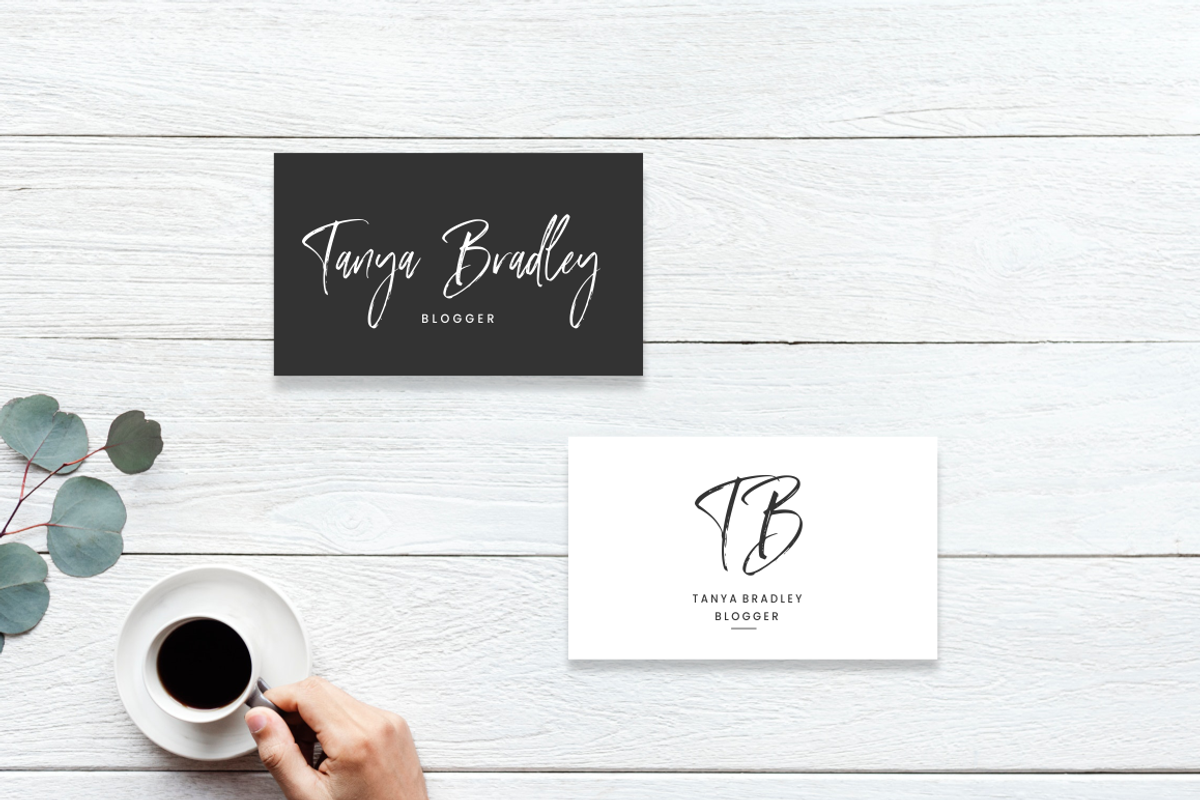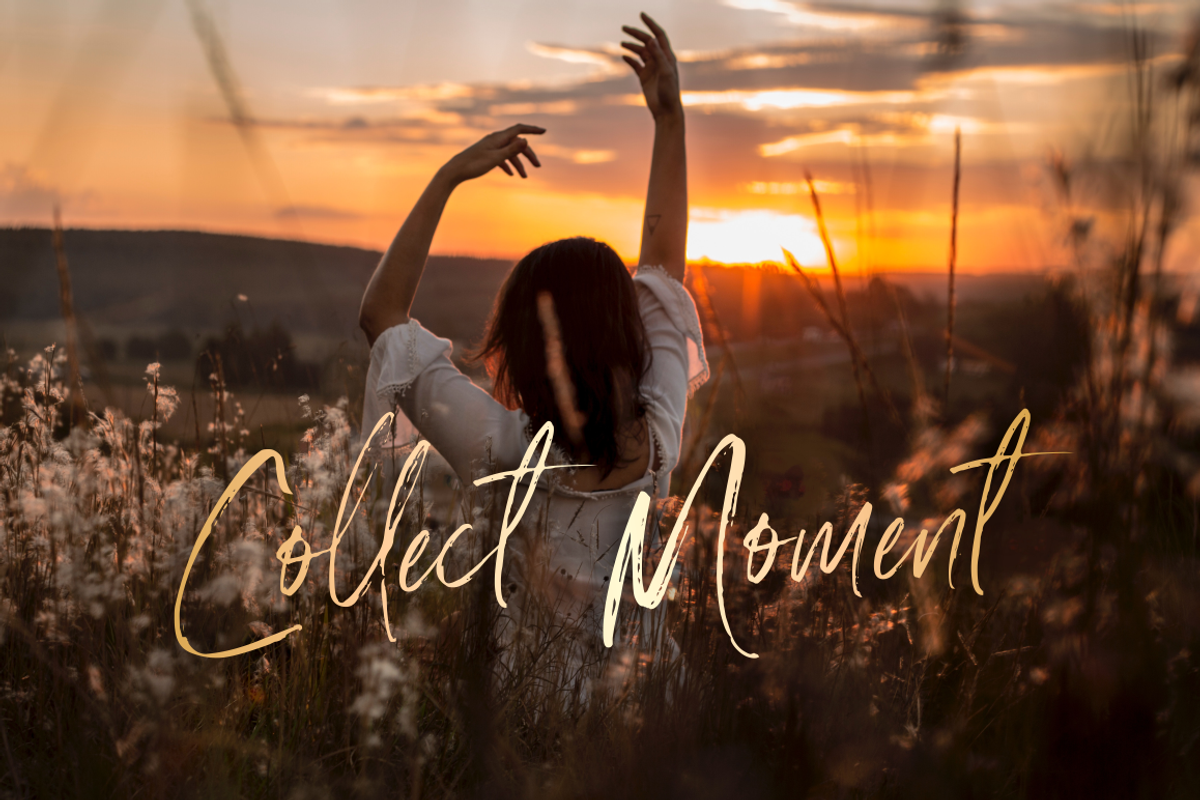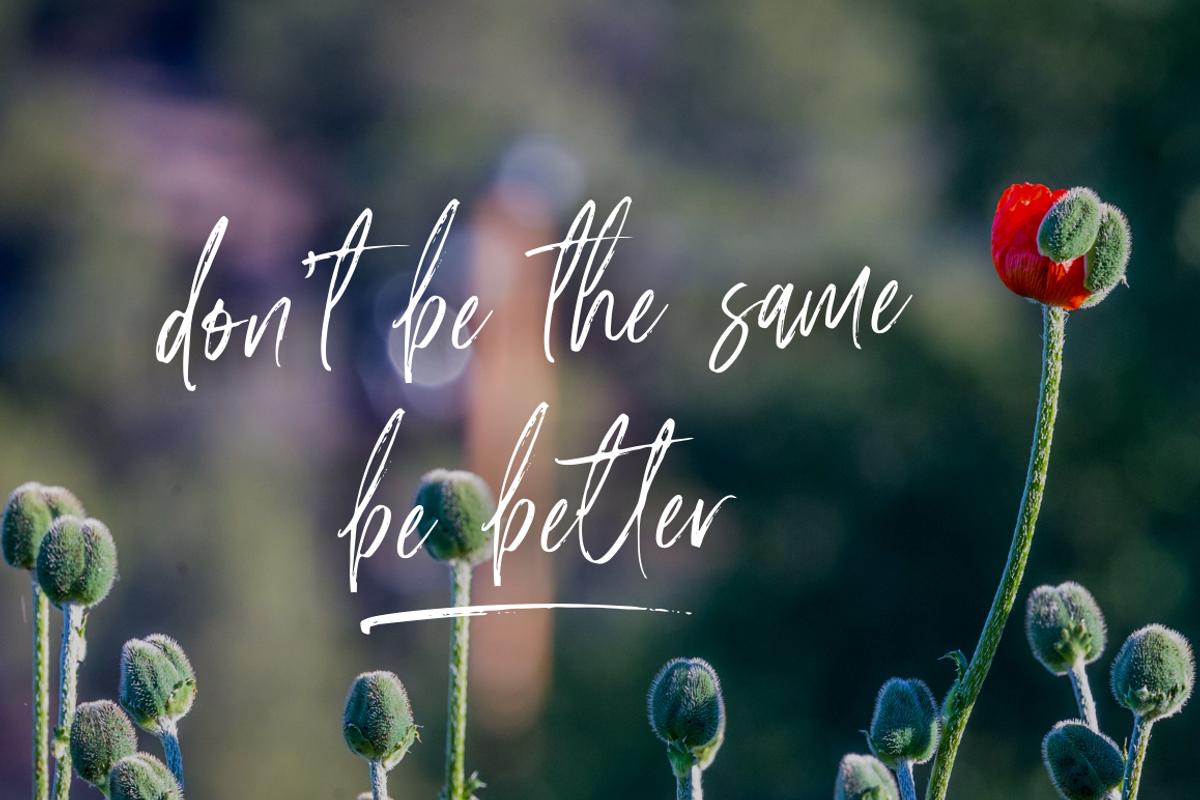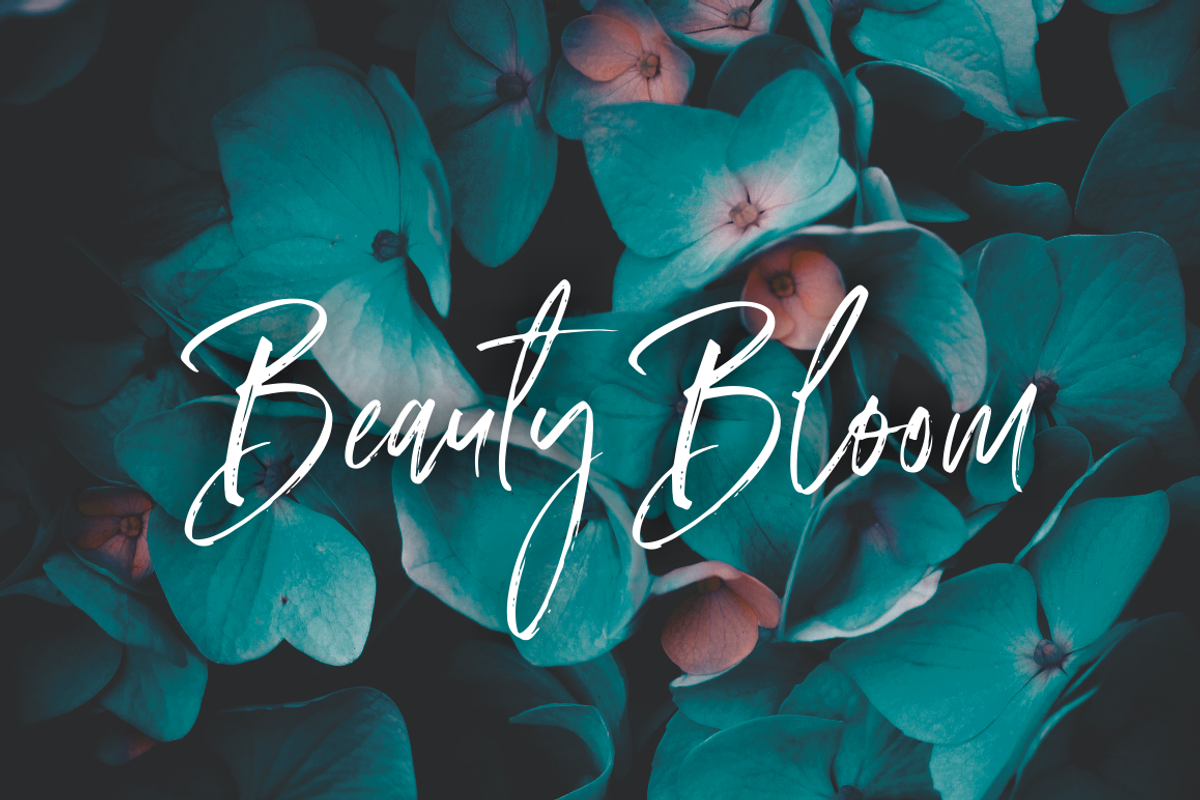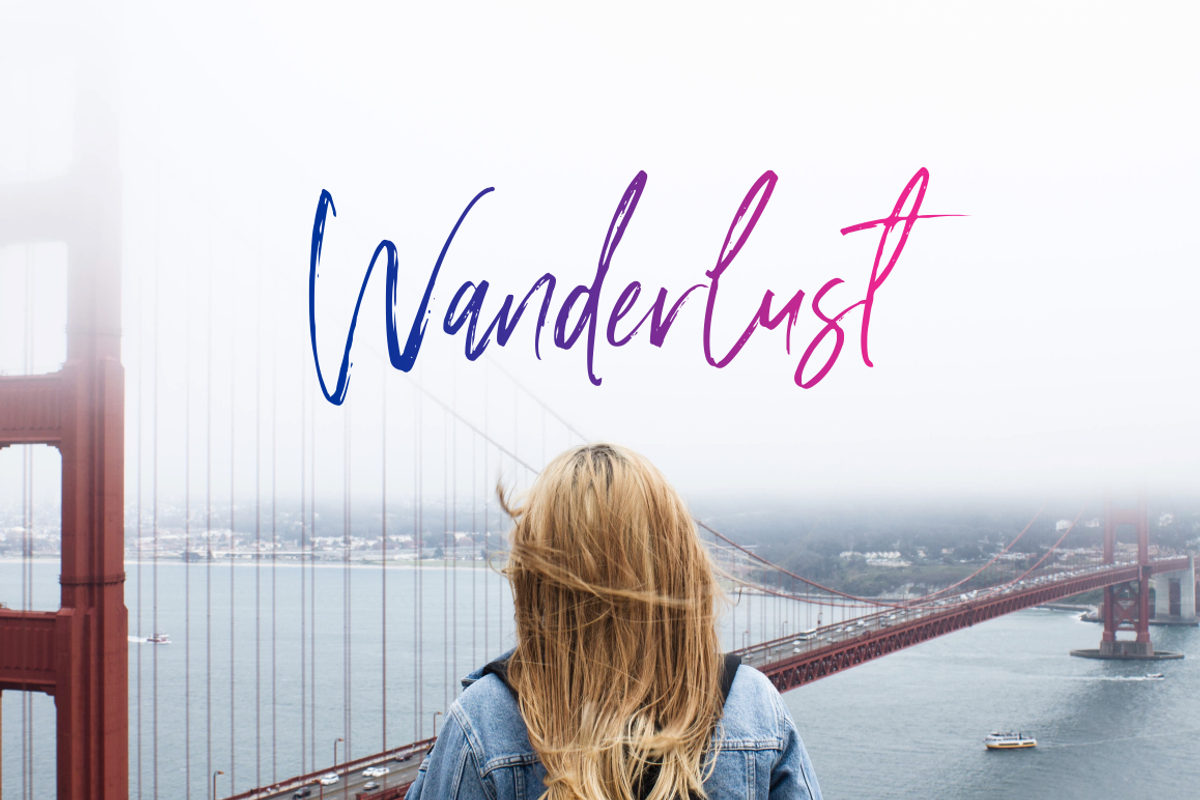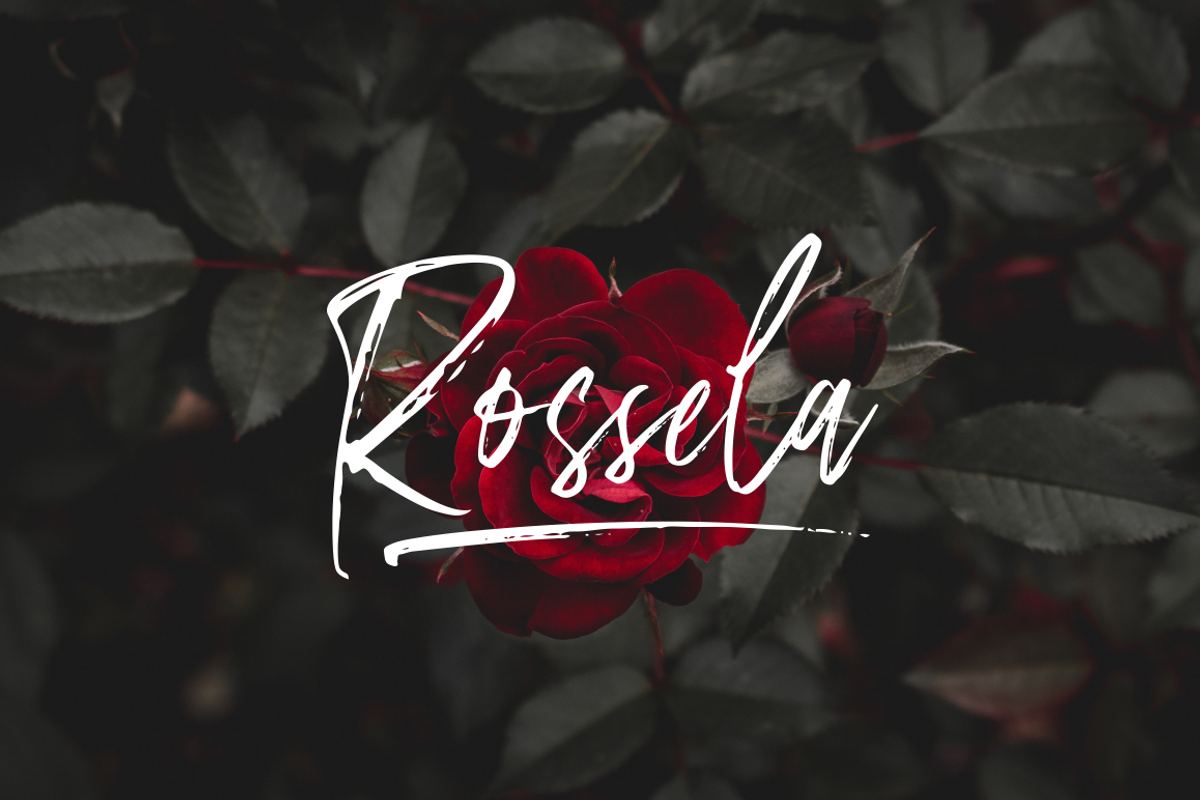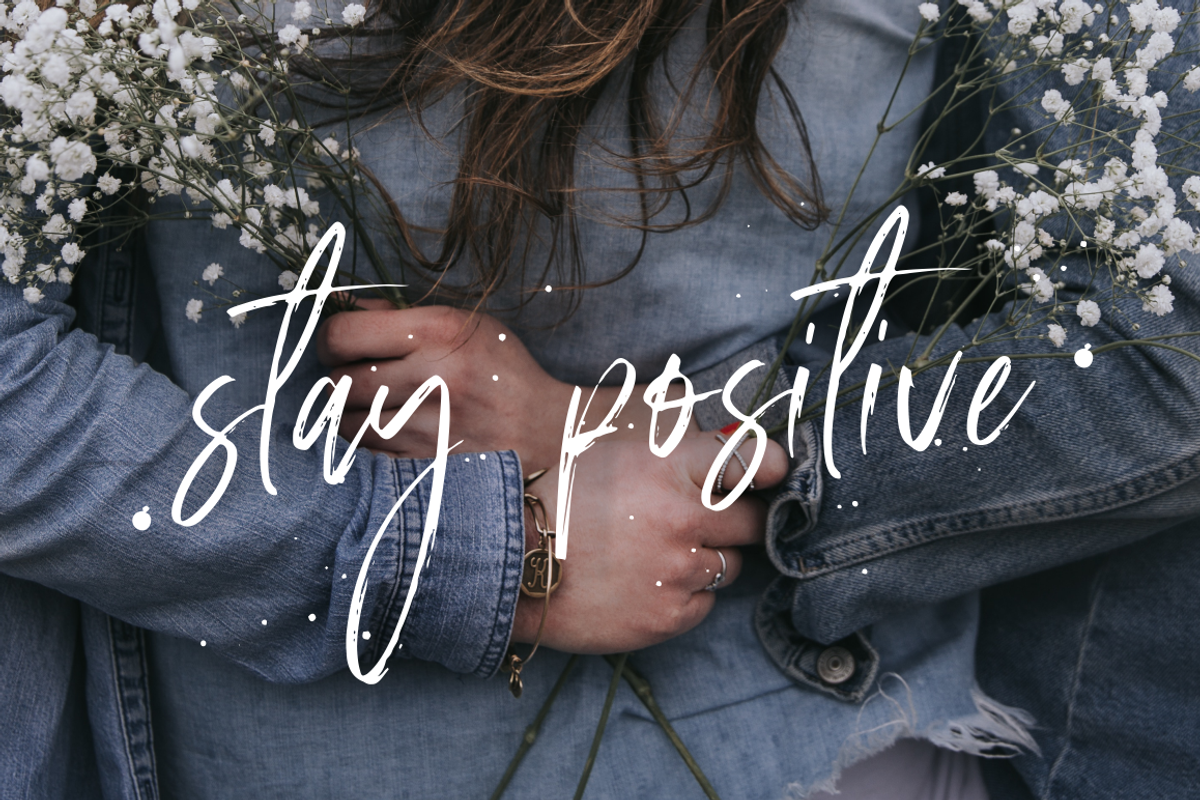
Amourist - Handwritten Font
Introducing Amourist – Handwritten Font
Amourist is a natural handbrused font, this font Is perfect for logo, invitation, stationery, wedding designs, social media posts, advertisements, product packaging, product designs, label, photography, watermark, special events or anything. Amourist comes with full set of uppercase and lowercase letters, multilingual symbols, numerals, punctuation.
- Amourist comes with full set of uppercase and lowercase letters, multilingual symbols, numerals, punctuation.
Why Amourist - Handwritten Font is worth a look
Amourist - Handwritten Font by Sronstudio fits naturally into Branding, posters, packaging, typography.